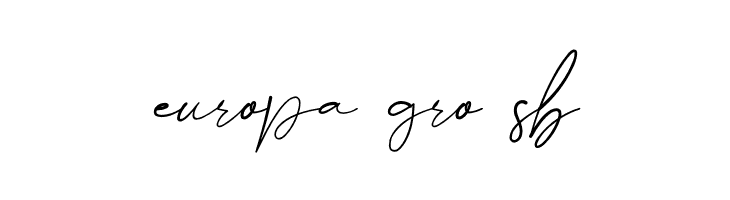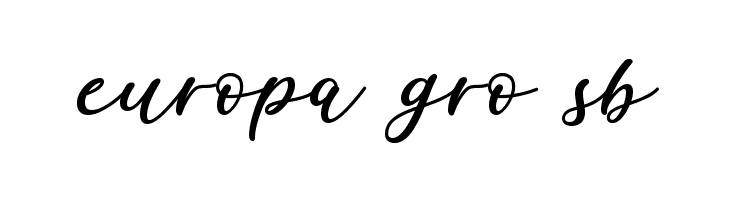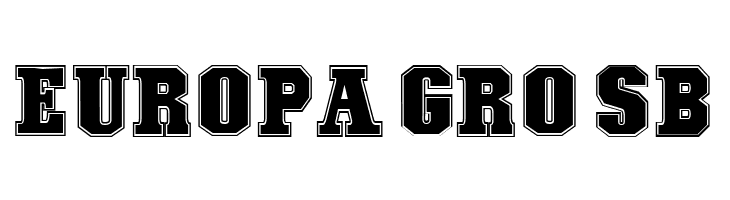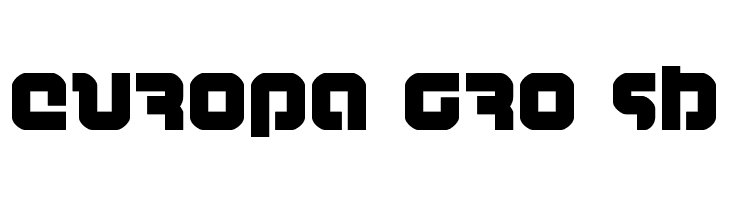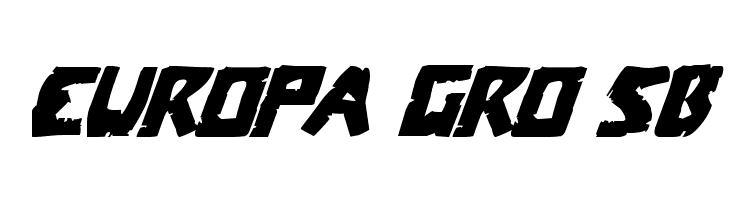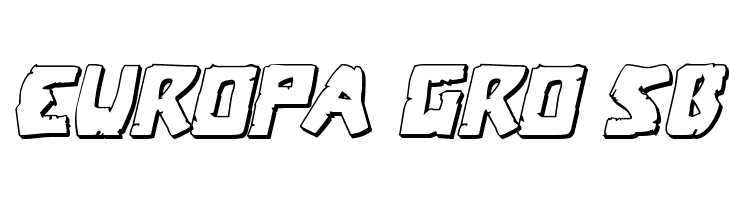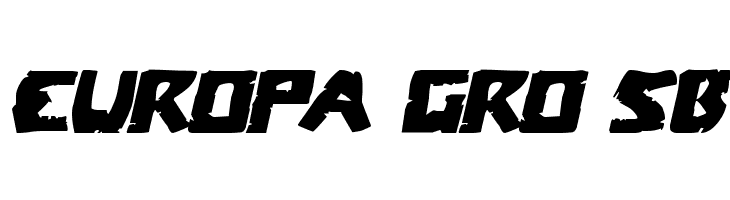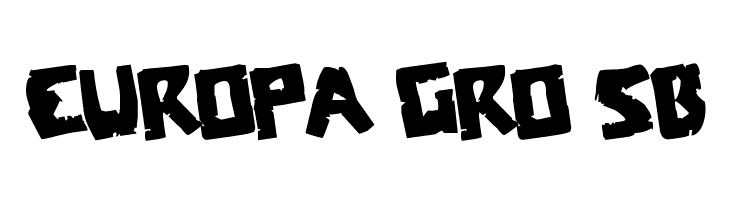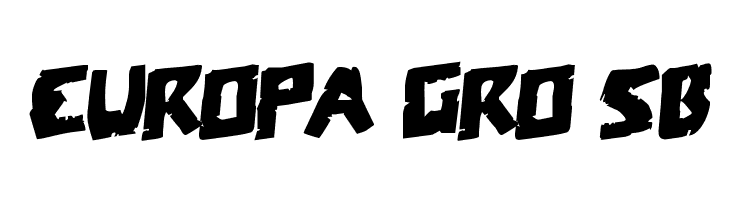
A playful, casual handwritten font with smooth curves and a modern touch.
A fluid and elegant script font with smooth, flowing lines and cursive letterforms.
A rugged, hand-drawn font with a playful and organic feel.
A playful, hand-drawn font with rounded, smooth strokes and a whimsical style.
A playful, casual script font with a handwritten style.
A playful, bold handwritten font with a friendly and energetic style.
A bold, brush-style font with dynamic, hand-painted strokes.
A pixelated, retro-style font with a blocky, digital appearance.
A geometric, double-line font with a modern, technical look.
A flowing, elegant script font with a handwritten style.
A playful and whimsical font with dynamic, irregular letterforms.
A bold slab serif font with a modern yet classic style.
A bold, playful font with whimsical, artistic shapes and unique angles.
A lively, flowing script font with a casual, handwritten style.
A playful, rounded font with smooth curves and a friendly appearance.
A lively and elegant script font with flowing, cursive letterforms.
A lively and elegant script font with fluid, connected strokes.
A bold, decorative font with playful swirls and curves.
A playful, bold font with rounded edges and a hand-drawn feel.
A playful, casual handwritten font with bold strokes and medium contrast.
A rugged, distressed font with a bold, carved appearance.
A bold, 3D stone-like font with a rugged, chiseled appearance.
A bold, 3D italic font with sharp, angular edges and a rugged aesthetic.
A bold, rugged, and condensed font with a distressed, stone-like texture.
A bold, angular, and condensed italic font with a rugged, modern style.
A bold, rugged font with a distressed, stone-like texture and expanded width.
A bold, angular, and distressed font with an expanded and italic style.
A bold, modern font with a gradient effect created by horizontal lines.
A bold, italicized font with a gradient effect and dynamic, modern style.
A bold, jagged, and italicized font with a distressed, edgy appearance.
A rugged, distressed font with a bold, chiseled appearance.
A bold, jagged font with a rugged, stone-like texture and dynamic style.
A bold, distressed font with a rugged, stone-like appearance.
A bold, rugged font with a distressed, grunge-like appearance.